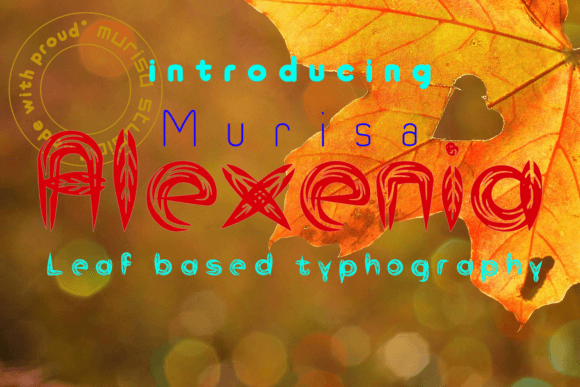
Murisa Alexenia Font
Introducing Murisa Alexenia Font: The Ultimate Font for Nature-Inspired Creations
Step into the captivating world of Murisa Alexenia, a breathtaking decorative font that weaves together the allure of fallen leaves with the artistry of a master calligrapher. Each character dances across the page like a leaf carried by the wind, whispering tales of nature's boundless beauty.
With its distinctive shapes and alluring cavities, Murisa Alexenia exudes an exotic charm that will cast a spell on your designs. Its organic flow and natural rhythm make it an ideal choice for projects that evoke the serenity of nature and the magic of the plant world.
Imagine your designs adorned with the vibrant hues of autumn leaves, the delicate petals of wildflowers, or the lush greenery of a rainforest. Murisa Alexenia will effortlessly transport your creations into a realm of botanical wonders, where nature's beauty takes center stage.
Whether you're crafting enchanting invitations, creating eye-catching social media graphics, or designing captivating websites, Murisa Alexenia has the power to transform your ideas into masterpieces that resonate with your audience. Its versatility knows no bounds, making it the perfect font for a wide range of projects.
Unlock the potential of Murisa Alexenia today and let your imagination soar. Embrace the beauty of nature and create designs that captivate and inspire.